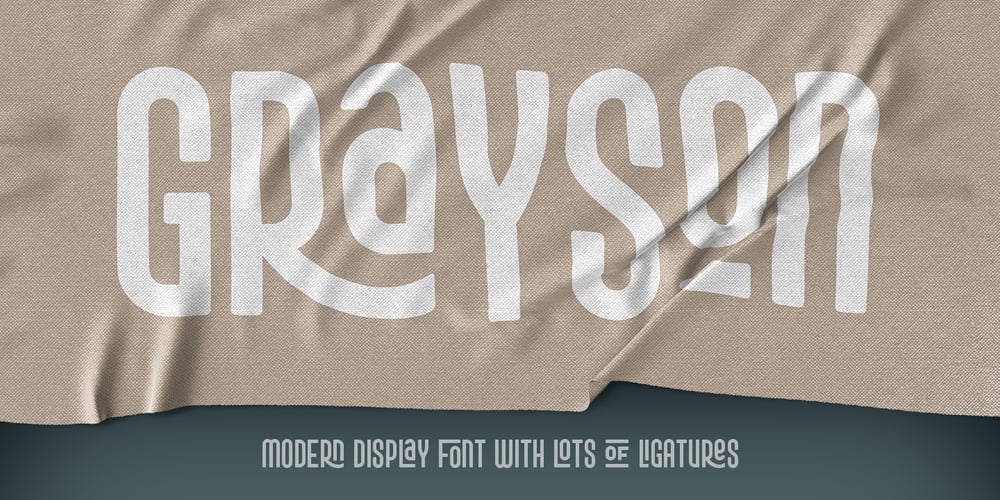
Grayson Font Family was designed by Gleb Guralnyk and published by Gleb Guralnyk. Grayson contains 1 styles and family package options. Introducing a modern display font “Grayson”. It’s a sans serif typeface with straight geometrical shape that has a lot of ligatures and stylistic alternates. Those OpenType features can help you to create an awesome unique lettering compositions with unexpected characters combinations.Use capital letters to access all those features. Nevertheless it can be a quite simple font if you’ll type lowercase letters, which can be useful for small supporting text. This font has West European multi-lingual support (check out the screenshot with available characters).